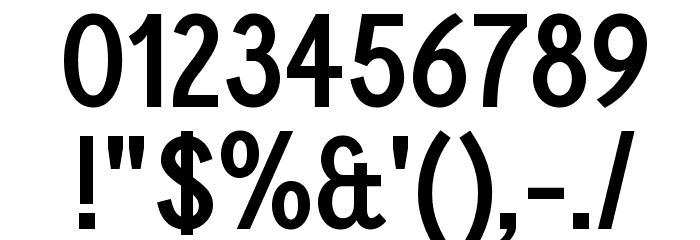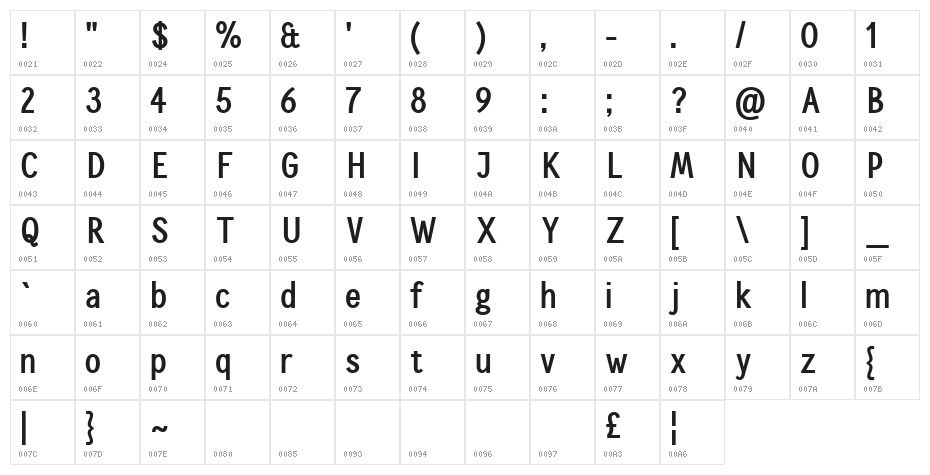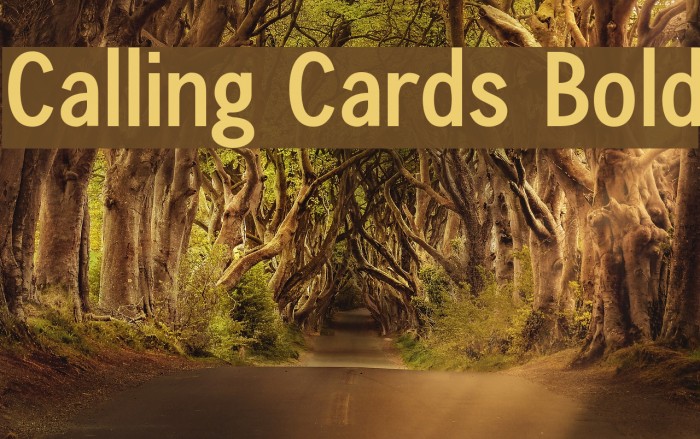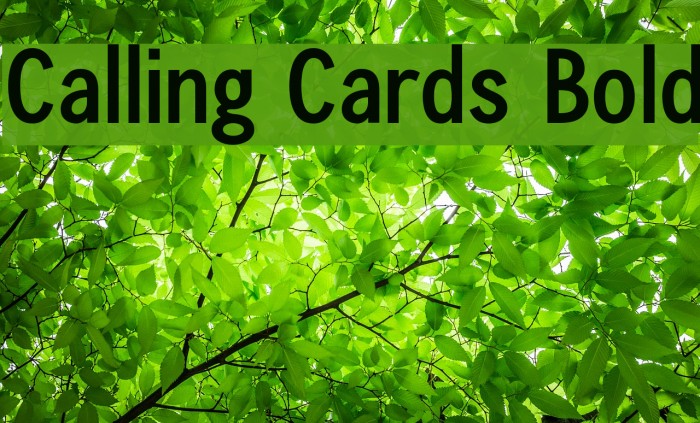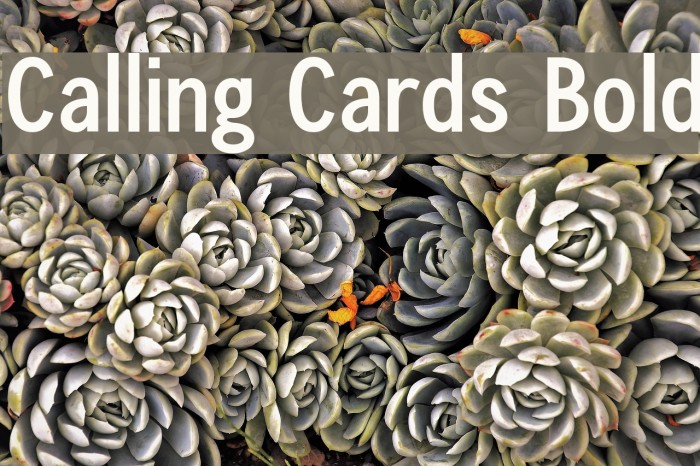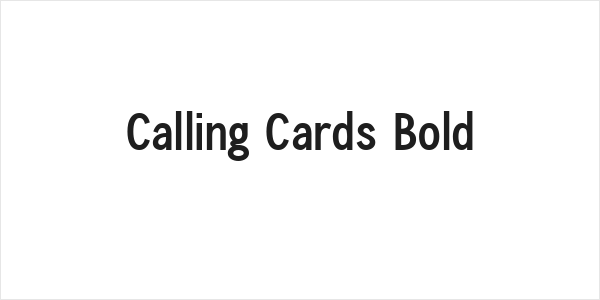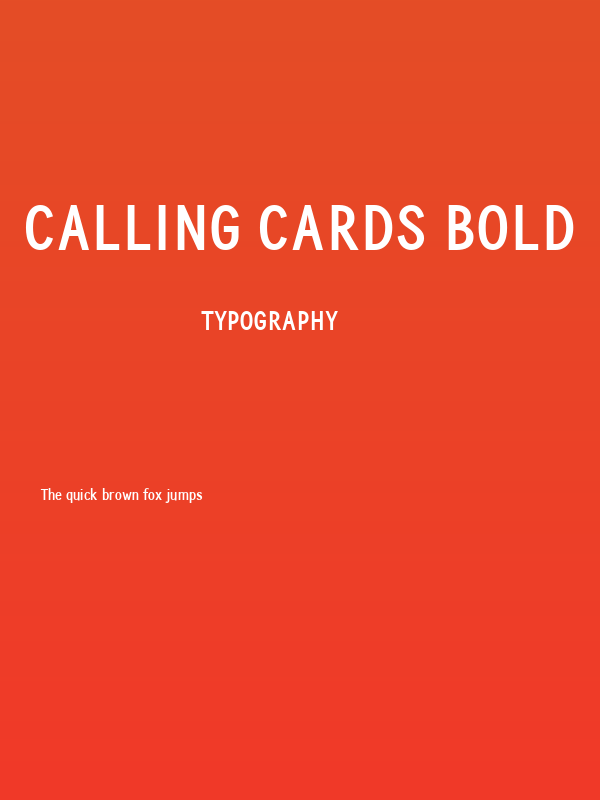
Calling Cards Bold Font
Calling Cards Bold Description
This font features a bold and modern sans-serif style with clean, straight lines and uniform stroke widths. The uppercase and lowercase letters are well-proportioned, offering a balanced and professional appearance. The numerals are clear and easily distinguishable, making them suitable for various applications. Special characters are included, maintaining the font's cohesive look. The overall design is straightforward and versatile, ideal for both digital and print media.
| Proposed Projects | Ideal for branding, advertising, headlines, and digital content where a strong, modern look is desired. |